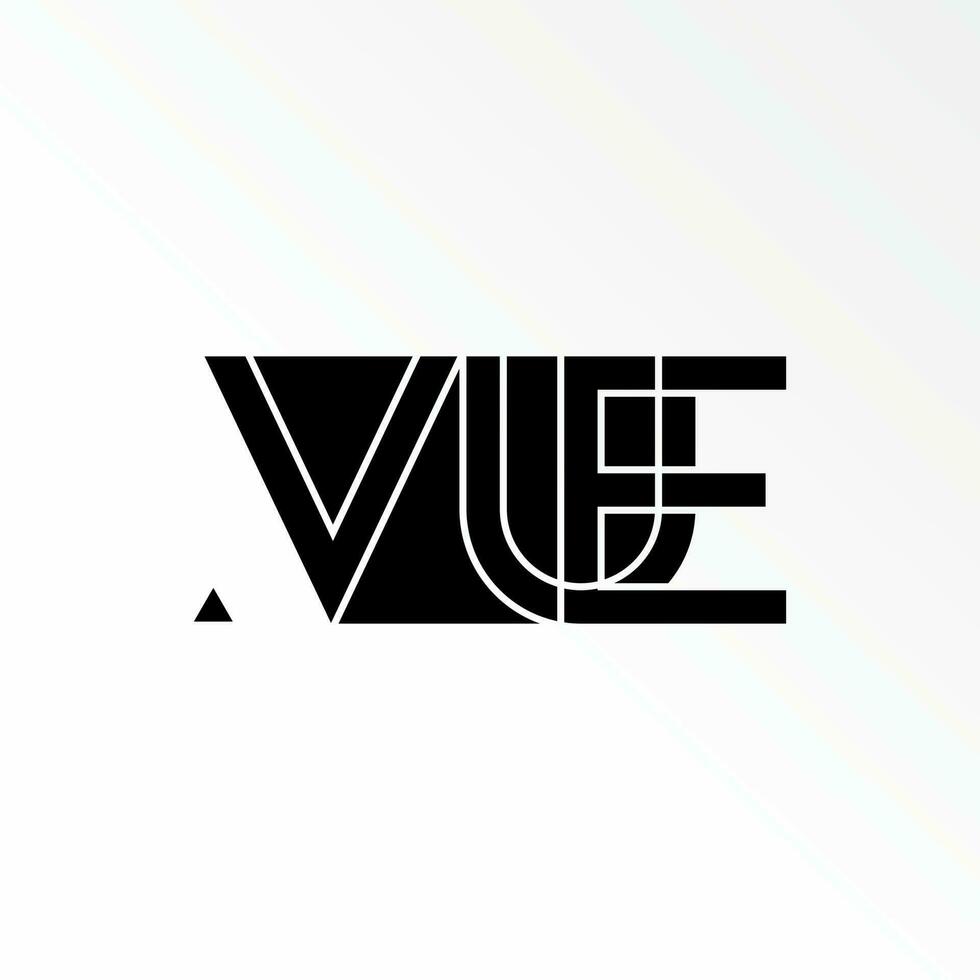
Unique letter or word VUE modern font in negative space or block image graphic icon logo design abstract concept vector stock. Can be used as a symbol related to initial or monogram Pro Vector